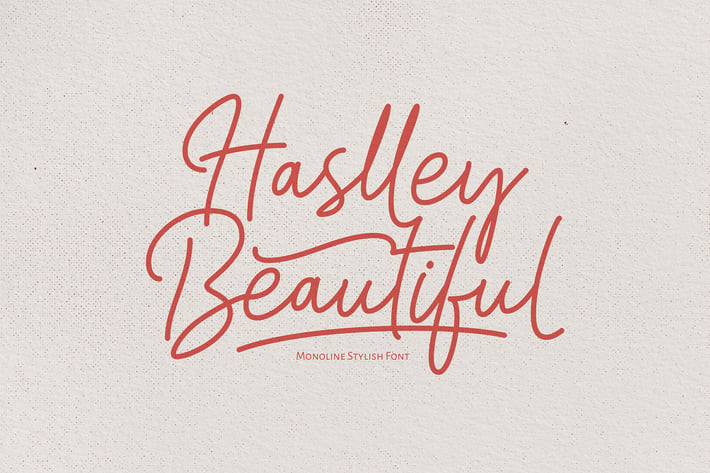
Haslley Beautiful - Calligraphy Wedding Font
Introducing a new font called Haslley Beautiful Monoline Stylish Font. Haslley Beautiful Monoline Stylish Font inspired by the beautiful curves of the world, this font has 686 types of glyphs that are able to give their own creations to designers because they have many variations of different types of letters. It is suitable for creating vintage designs such as logo, posters, merchandise, clothing, brochures, business cards and others. It can be accessed by using Open Type savvy programs like Adobe Illustrator and Adobe InDesign. Features can be accessed by using Open Type save programs such as Adobe Illustrator, Adobe InDesign, Adobe Photoshop, Corel Draw X version and Microsoft Word. And this has given PUA unicode font (specially coded fonts). So that all the alternate characters Easily can be accessed in full by a Craftsman or designer.
+ Uppercase
+ Lowercase
+ Numbers
+ Punctuations
+ Alternates
+ Ligatures
+ Swashes
+ Multilingual Support